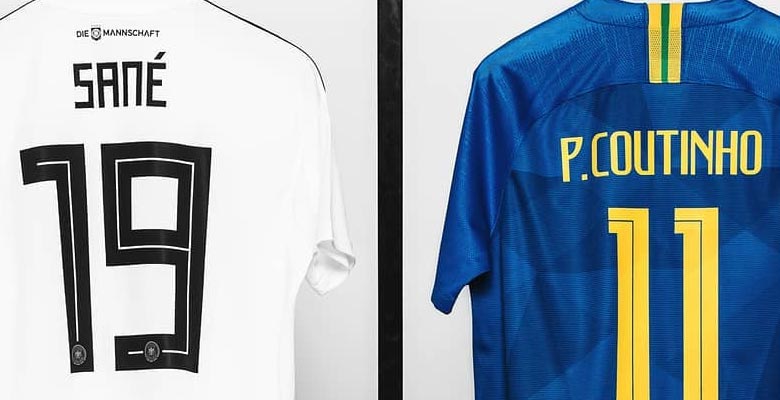
Nike 'Clear Winner'? Adidas vs Nike 2018 World Cup Jersey Fonts
Last week, both Adidas and Nike released all the jerseys for the 2018 World Cup in Russia. We take a look at Adidas' and Nike's 2018 World Cup typefaces.
Adidas vs Nike 2018 World Cup Fonts
The Adidas 2018 World Cup font is used for all teams sponsored by the Three Stripes. Featuring a very distinct look, the Adidas 2018 World Cup typefaces is inspired by traditional Soviet imagery and doesn't include any sort of roundness.
Adidas' 2018 World Cup font was heavily criticized as the typeface can be easily misidentified, and some letters like the Z look exactly the same numbers (2).
In contrast to Adidas, Nike created bespoke typefaces for their best national teams, including unique fonts for Brazil, England, USA, Nigeria and Portugal. The Nike 2018 World Cup fonts were well received by fans and kit nerds alike.